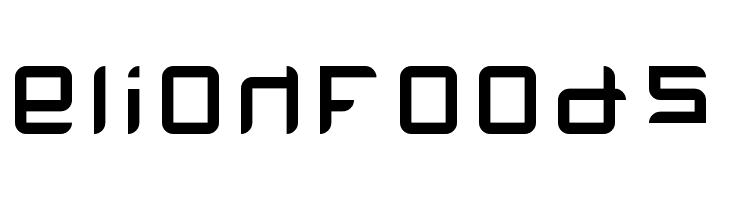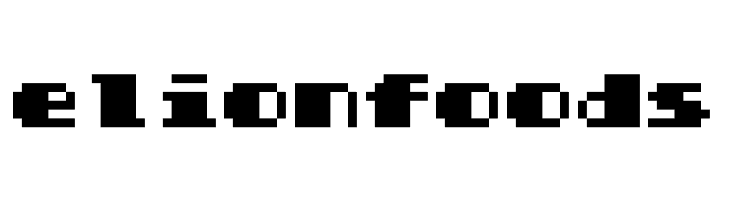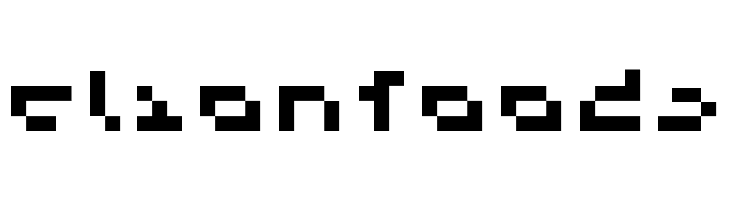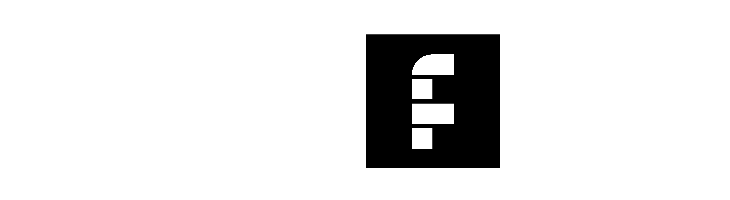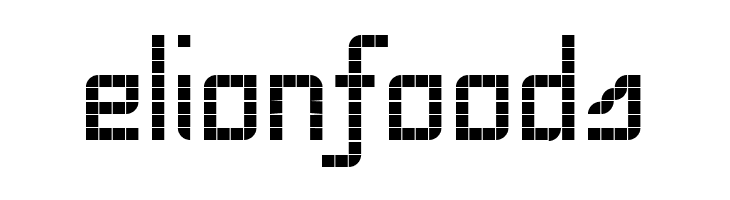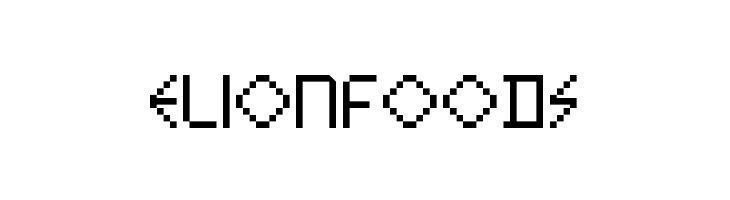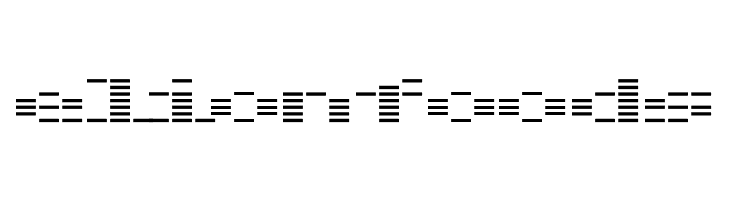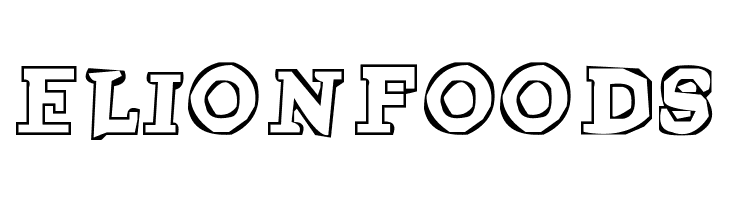
• Gradius, Gradius 2 TTF
A pixelated, retro-style font inspired by classic arcade games.
• Ninja Kid 2 TTF
A bold, pixelated font with a retro arcade game style.
• Solomon's Key True Type
A bold, pixelated font with a retro digital style.
• Sendai Smallprint
A pixelated, blocky font with a retro digital aesthetic.
• Ostrogothic Regular
A pixelated, geometric font with a retro digital aesthetic.
• Deamus Normal
A pixelated, geometric font reminiscent of digital displays and retro gaming.
• Limo Regular
A pixelated, geometric font with a retro digital aesthetic.
• OTOchouha
A segmented, digital-style font with a modern, tech-inspired look.
• LMS PokeDex
A bold, angular font with a playful, retro video game style.
• MrNastZzSimple Regular
A pixelated, tech-inspired font with a modern digital aesthetic.